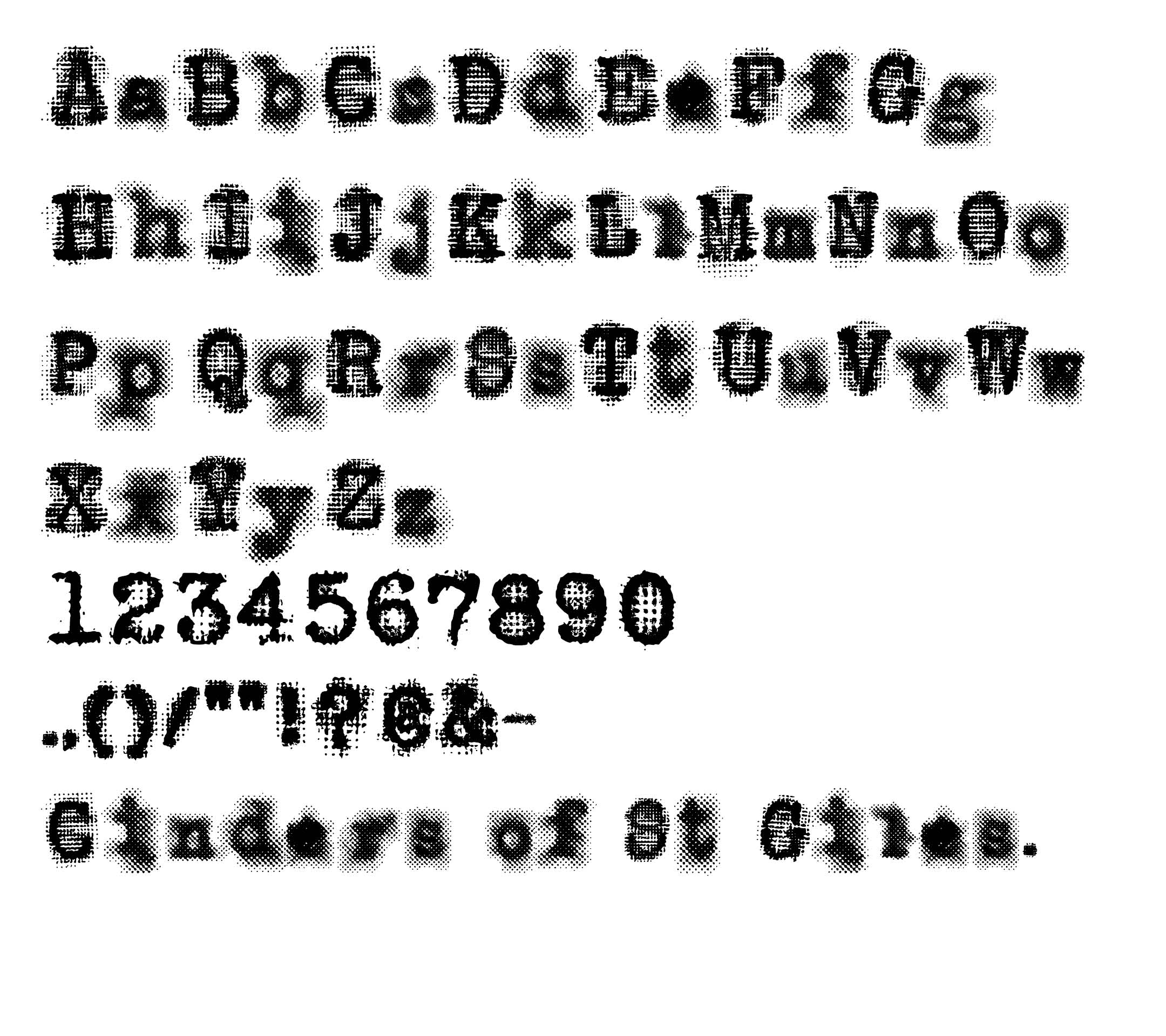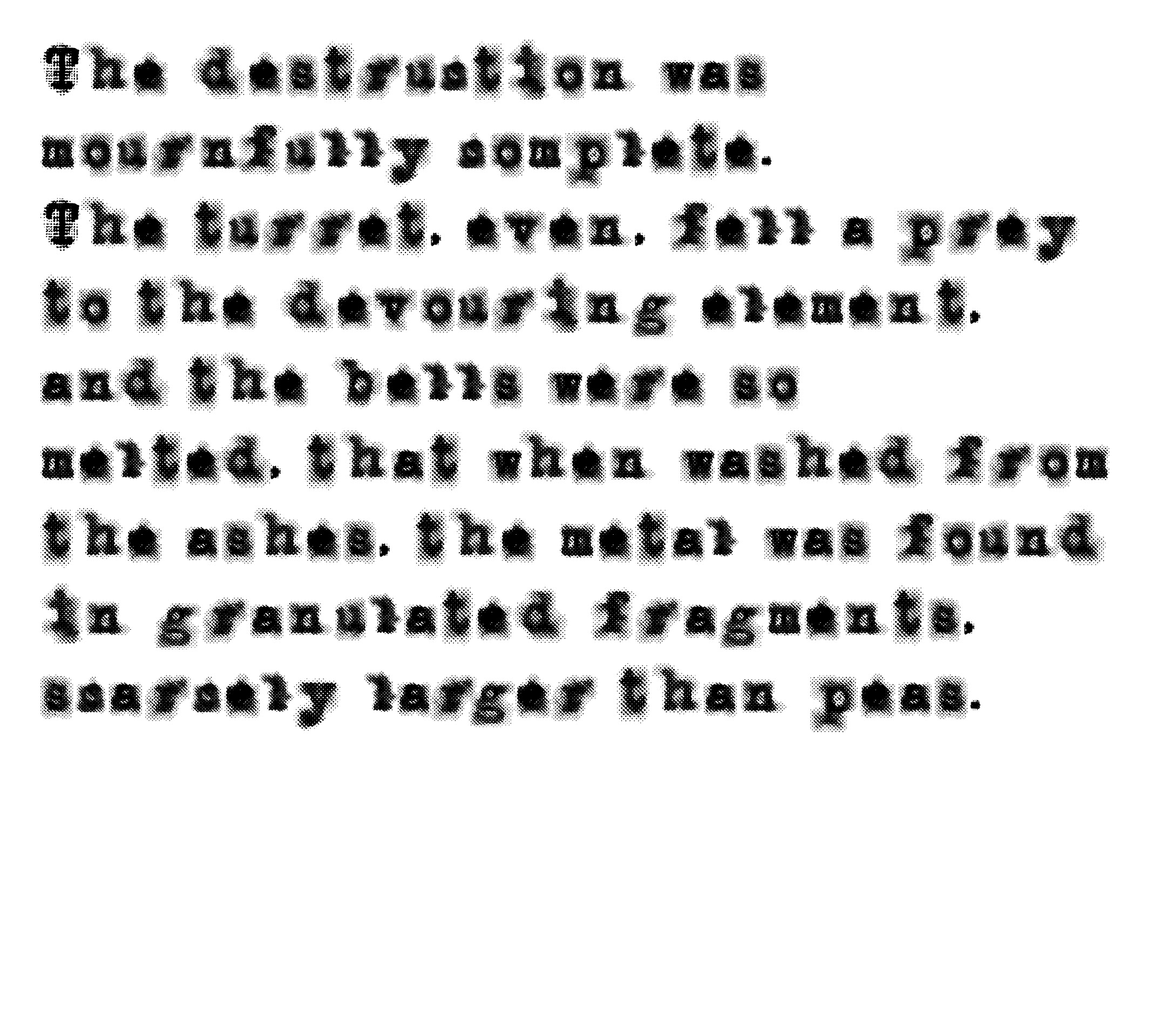
Incinerated and smoky, this typeface drifts through soot and smog, its eroding strokes echoing the obscurity left by the fire. Characters fade like memories of stone worn thin, yet bold fragments remain, standing firm like the strongest parts of St Giles that endured the flames.
Ash in the air, letters stripped bare.
Smoke in the night, fragments hold tight.
Where shadows fall, some strokes still stand tall.